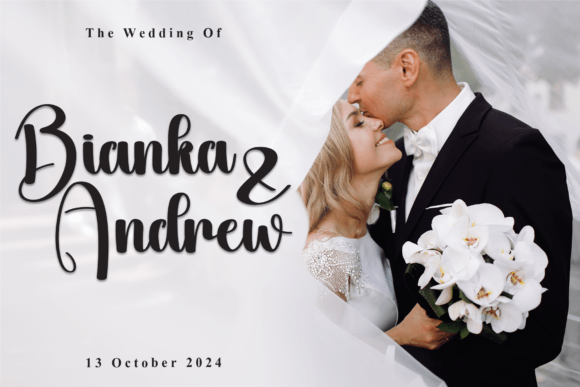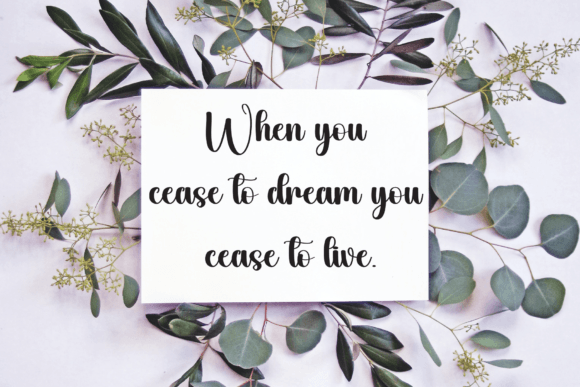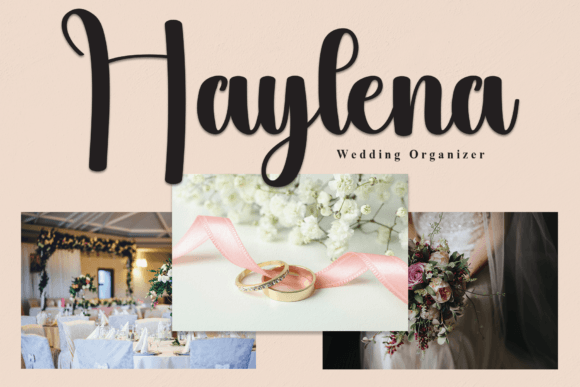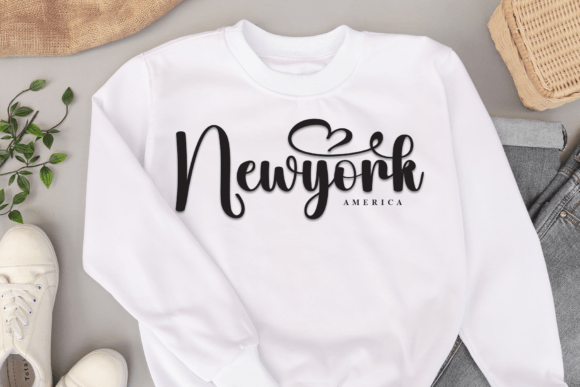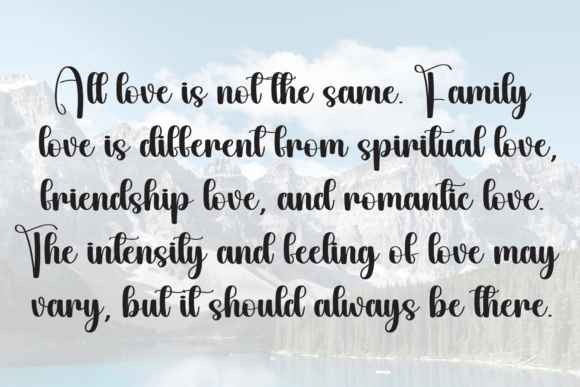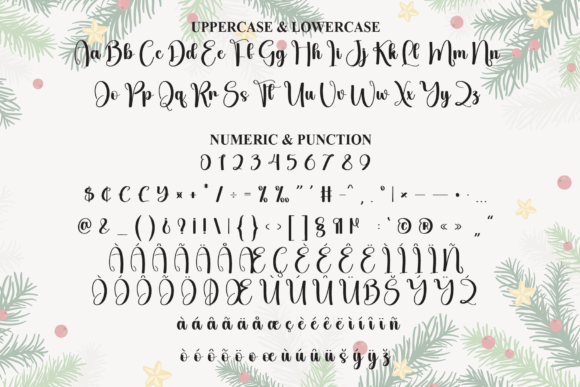
Introducing December Font: The Sweetest Handwritten Display Font for Your Designs
Are you looking for a font that can add a touch of whimsy and playfulness to your designs? Look no further than December Font, a delightful and charming handwritten display font that’s perfect for crafters and designers alike. With its friendly and approachable style, this font is sure to bring a smile to your face and make your designs stand out from the crowd.
The Perfect Blend of Cute and Playful
December Font is a masterful blend of cute and playful, making it the ideal choice for designers who want to add a sprinkle of sweetness to their creations. Whether you’re working on a wedding invitation, a greeting card, or any other design project, this font is sure to infuse it with an irresistible fun vibe. Its charming handwritten style is perfect for those who want to add a personal touch to their designs and make them more relatable and engaging.
What Makes December Font So Special?
So, what sets December Font apart from other fonts out there? Here are just a few things that make it so special:
- Handwritten with love: December Font is a carefully crafted handwritten font that’s been designed to look like it was written with love. Its imperfections and quirks make it feel more personal and human.
- Delightfully playful: This font is all about having fun and being playful. Its bouncy and irregular style is sure to bring a smile to your face and make your designs more engaging.
- Perfect for personalizing: December Font is ideal for personalizing wedding invites, greeting cards, and other designs. Its friendly and approachable style makes it feel like you’re speaking directly to your audience.
- Versatile and flexible: Whether you’re working on a digital project or a print design, December Font is versatile and flexible enough to work beautifully in any context.
How to Use December Font in Your Designs
December Font is incredibly easy to use, even if you’re not a seasoned designer. Here are a few tips to get you started:
- Pair it with bold fonts: December Font works beautifully when paired with bold fonts. Try pairing it with a clean sans-serif font for a striking contrast.
- Use it for headings: December Font is perfect for headings and titles. Its playful style makes it a great choice for grabbing attention and drawing the eye.
- Add some texture: December Font looks great with texture and patterns. Try adding a subtle texture or background to give your design some extra depth.
Why Designers and Crafters Love December Font
December Font has quickly become a favorite among designers and crafters, and it’s easy to see why. Here are just a few reasons why:
- Easy to read: Despite its playful style, December Font is incredibly easy to read. Its clear and legible letters make it perfect for body text and captions.
- Unique and distinctive: December Font has a unique and distinctive style that’s sure to make your designs stand out from the crowd.
- Supports multiple languages: December Font supports multiple languages, making it a great choice for designers who work with international clients.
December Font is a delightful and charming handwritten display font that’s perfect for designers and crafters who want to add a touch of whimsy and playfulness to their designs. With its friendly and approachable style, this font is sure to bring a smile to your face and make your designs more engaging. Whether you’re working on a wedding invitation, a greeting card, or any other design project, December Font is the perfect choice. So why wait? Download December Font today and start adding a sprinkle of sweetness to your designs!